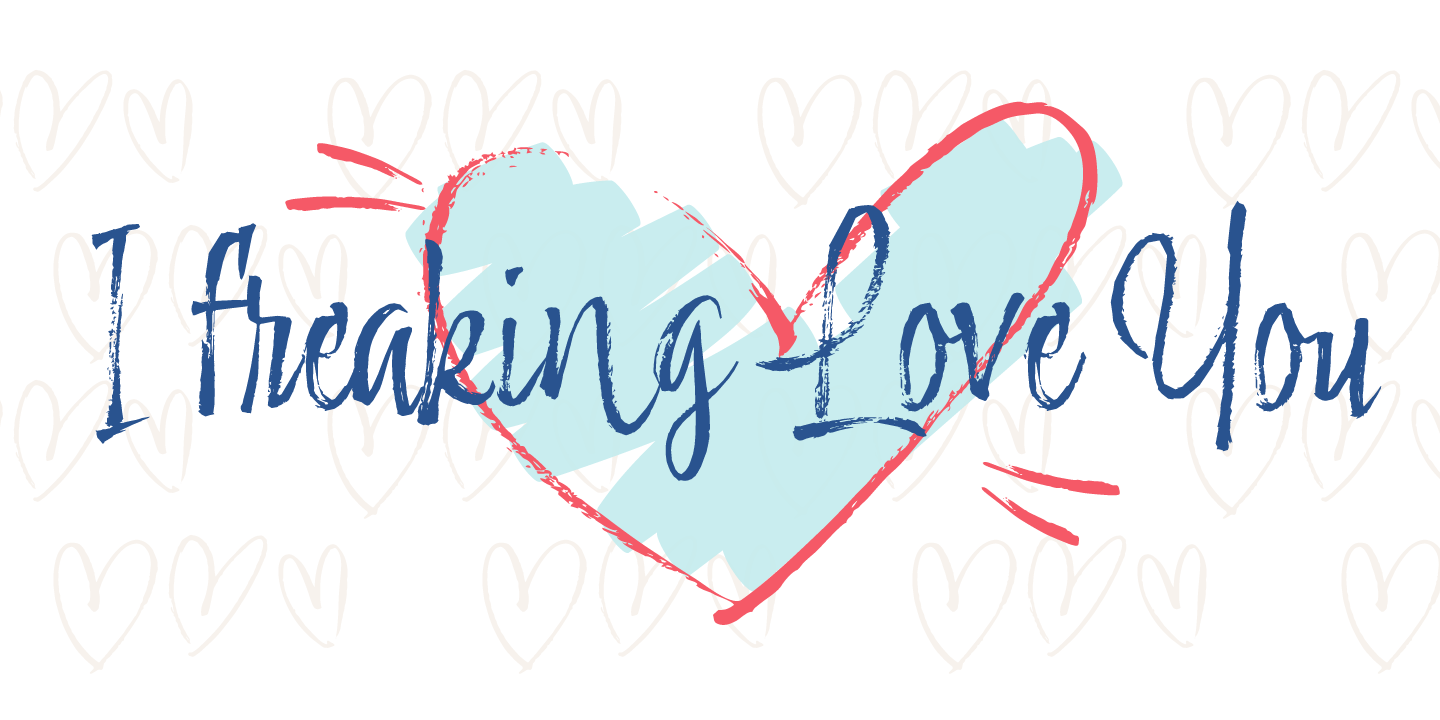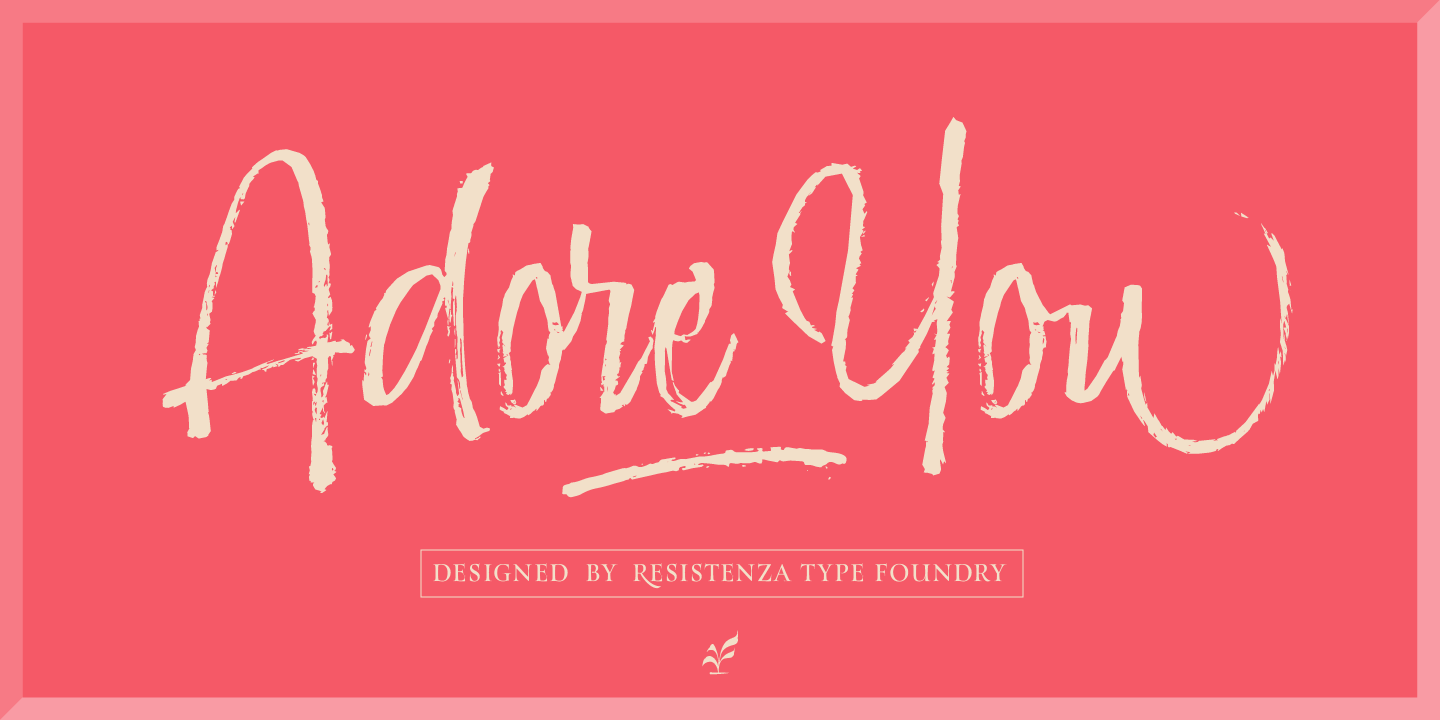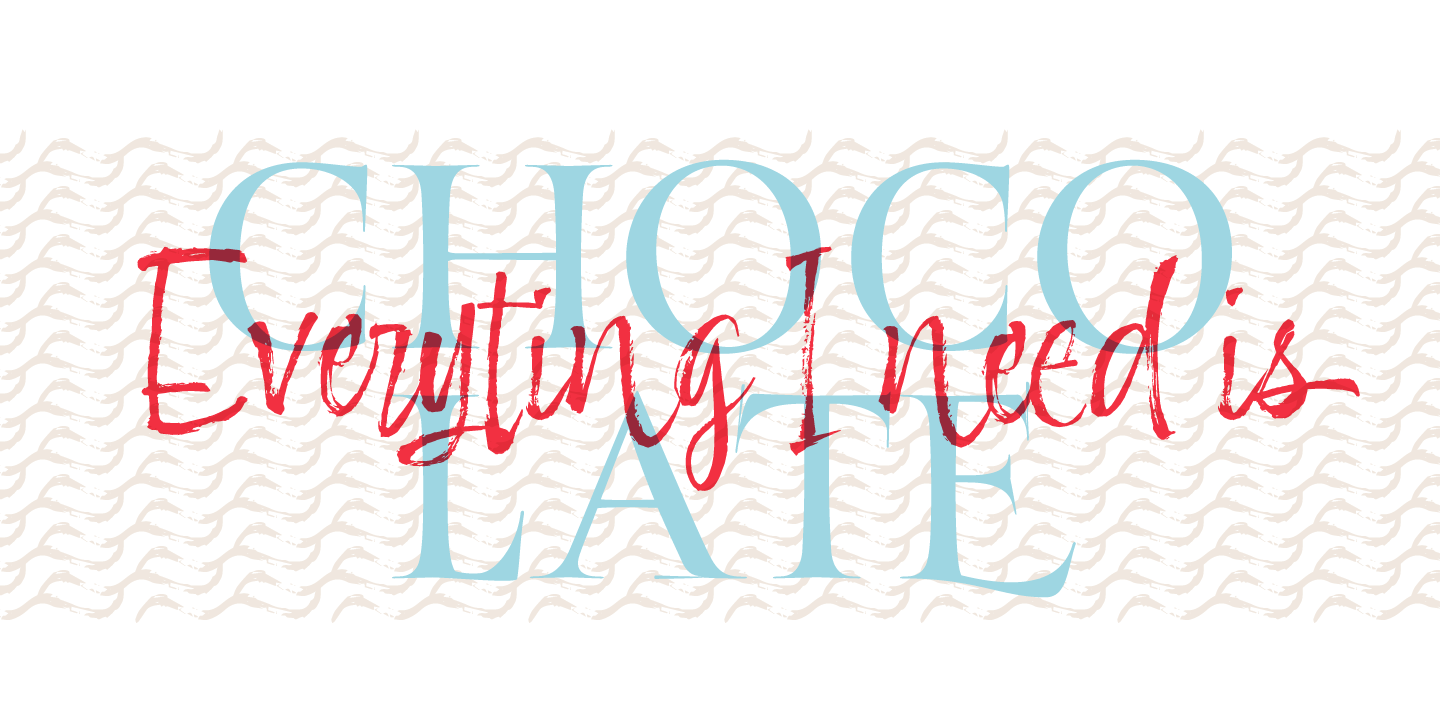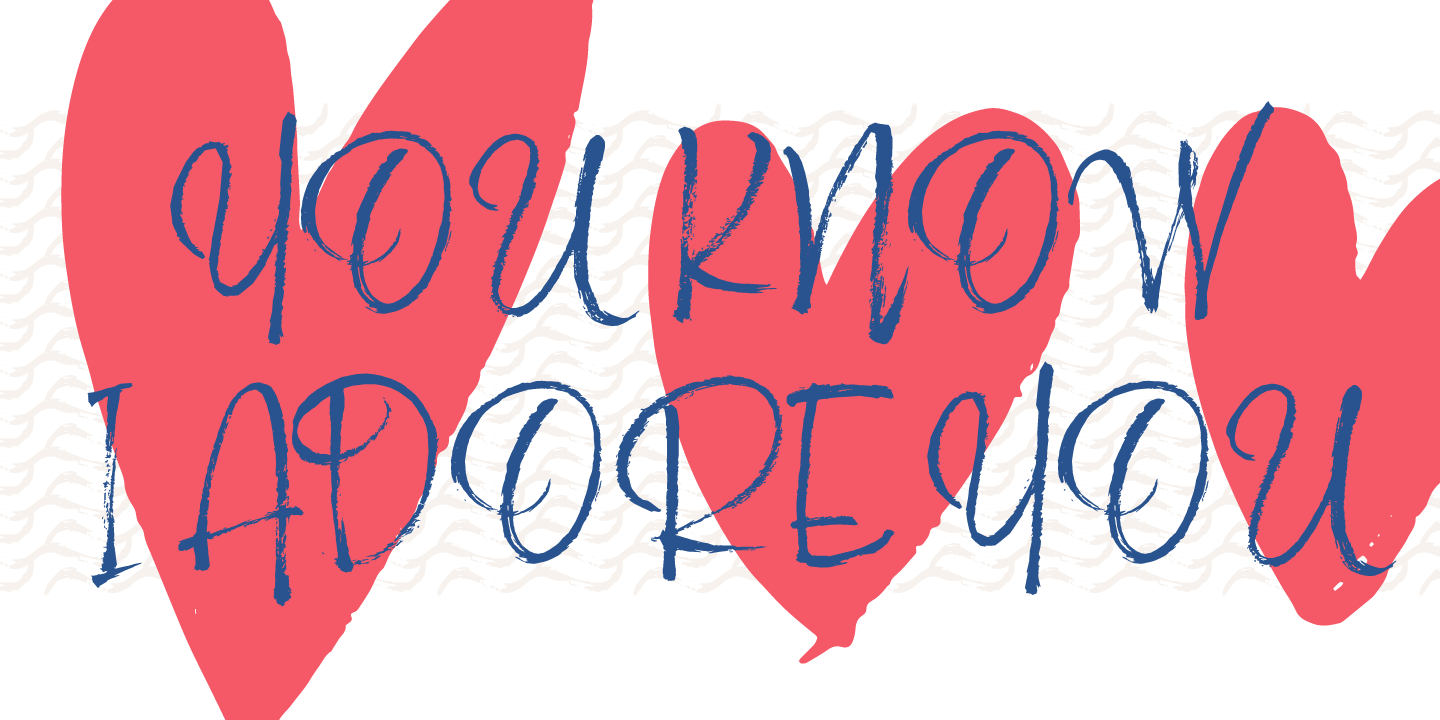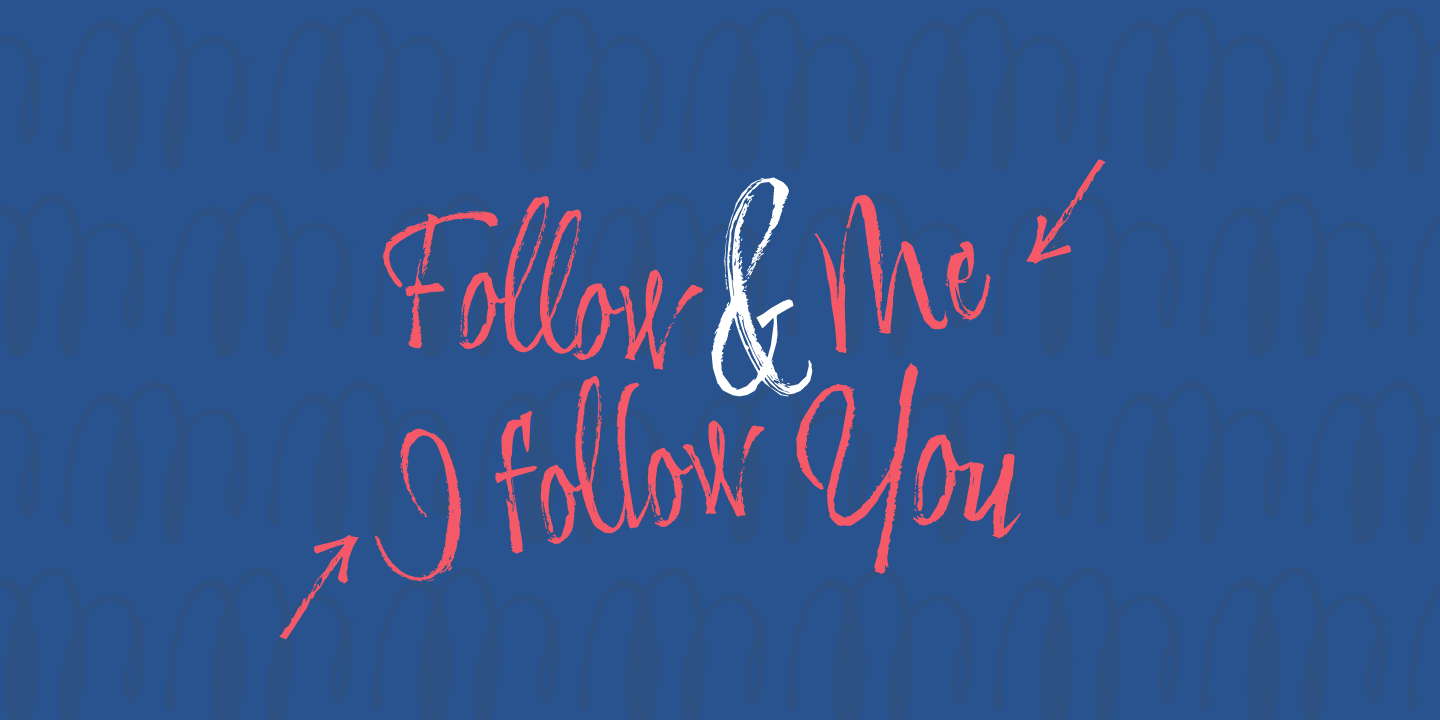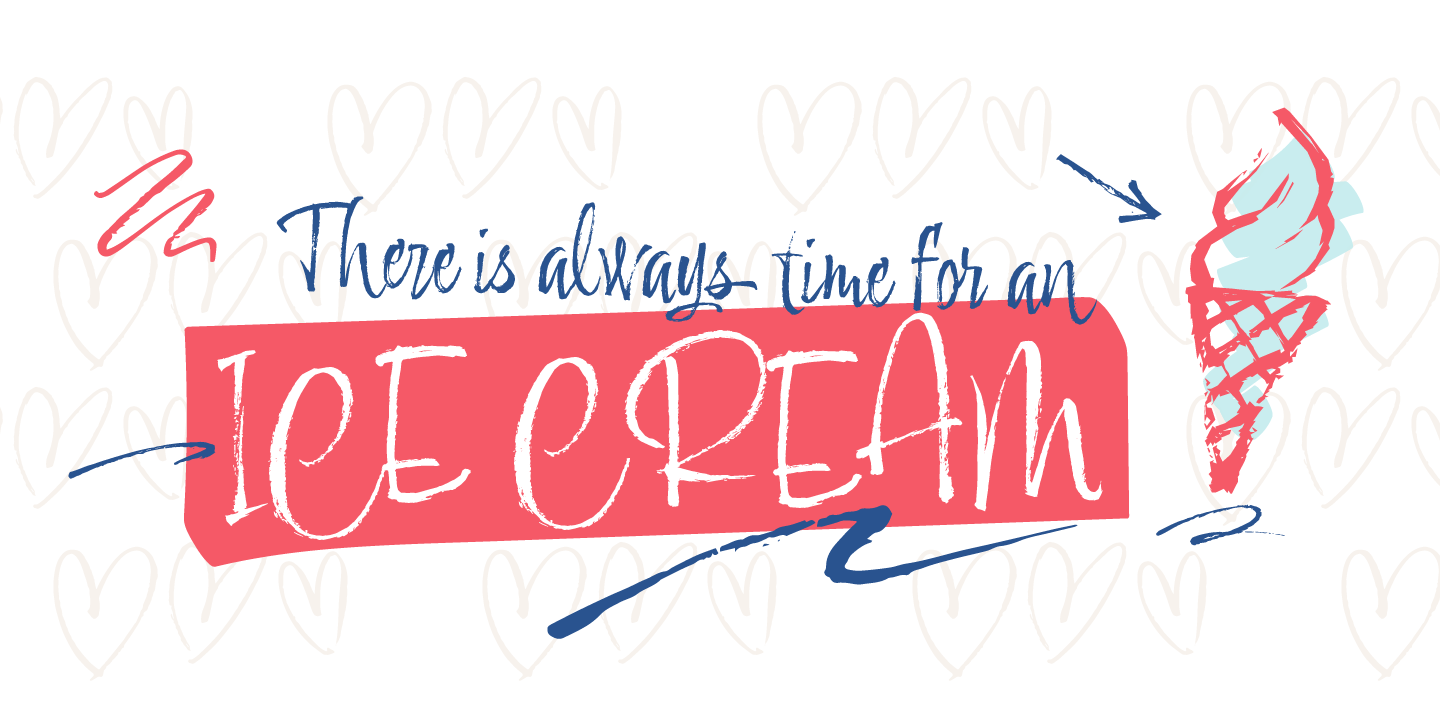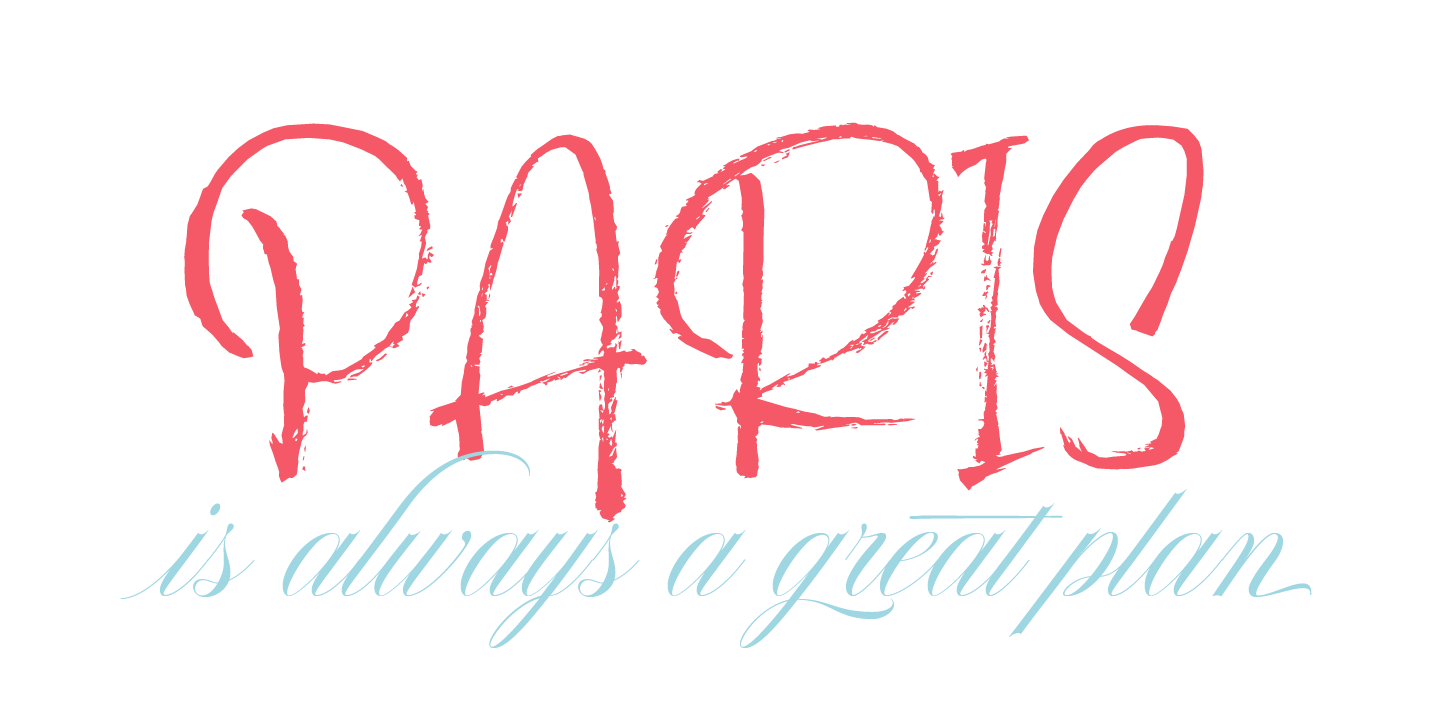
Adore You
About Adore You
Fall in love with Adore you, a new script font designed with dry-brush. These original letterforms were created by the expert hand of calligrapher Giuseppe Salerno. A fresh expressive and playful calligraphic approach, then digitized keeping textured…